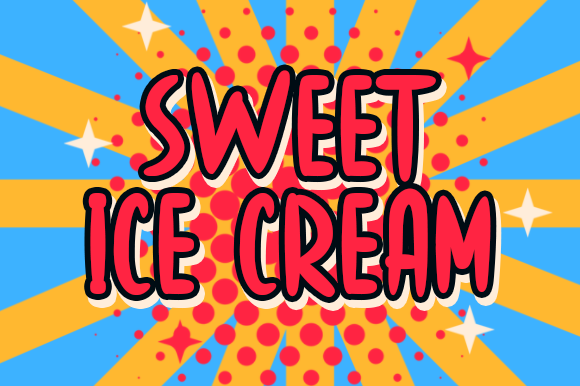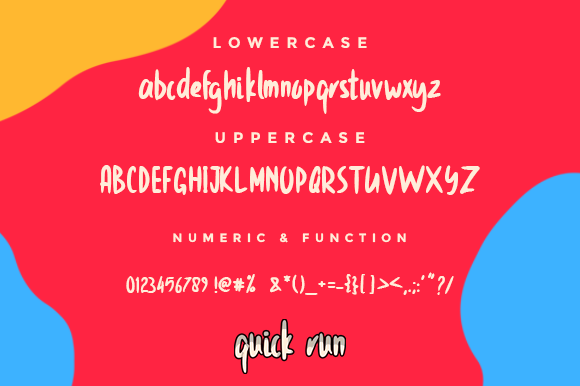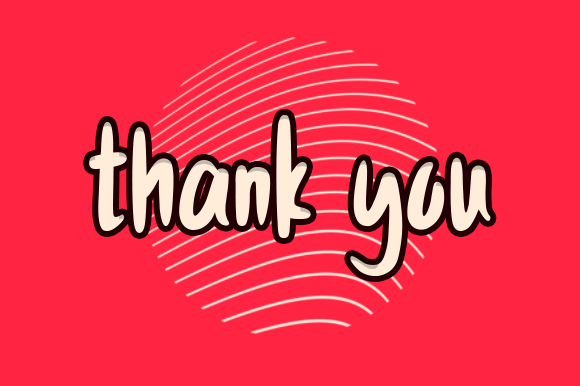
Quick Run Font
About Quick Run Font
Quick Run is a unique and elegant handwritten font with natural stroke shapes.
It was suitable for children-themed designs, posters, flyers, business cards, branding.